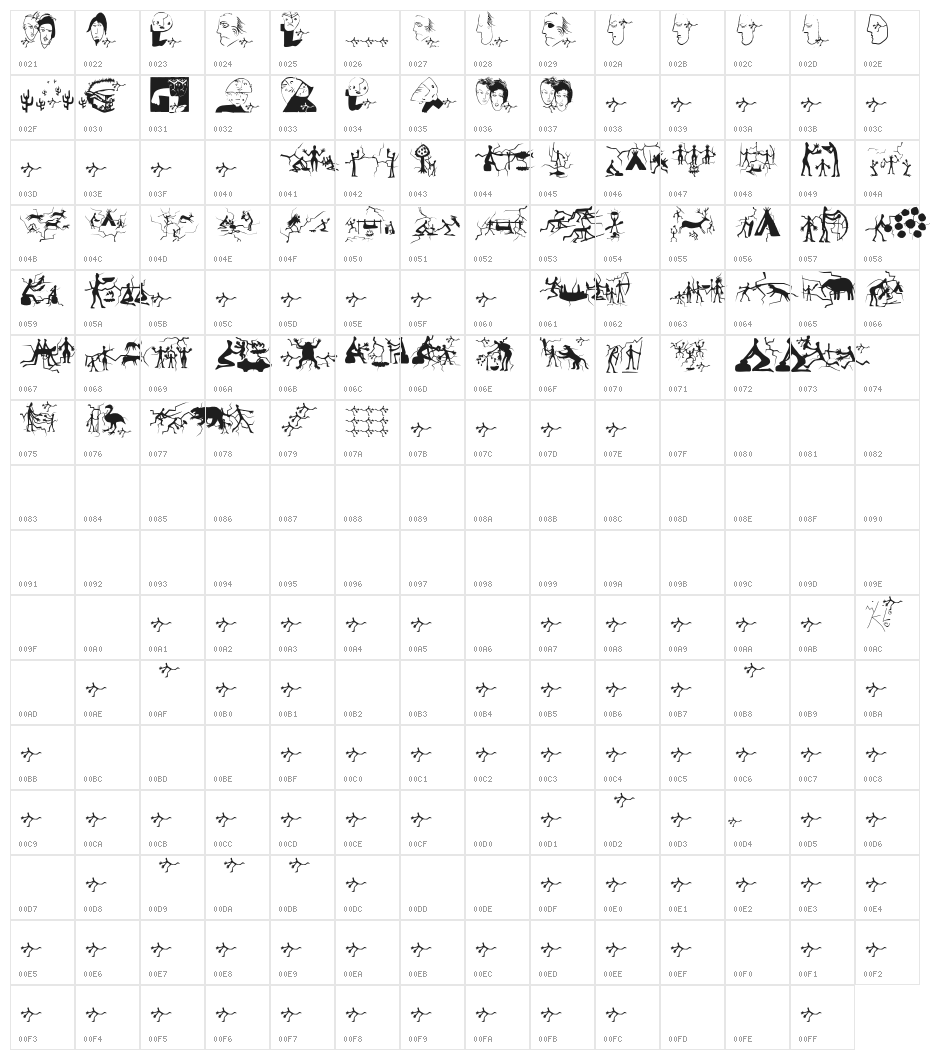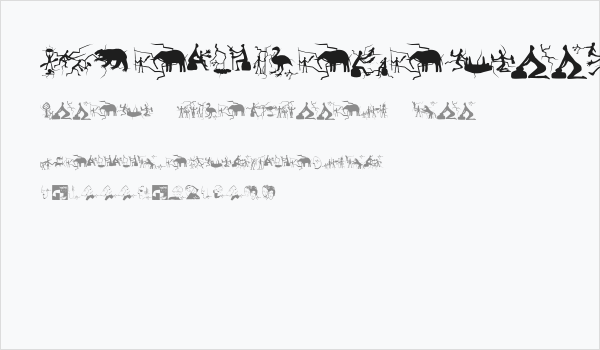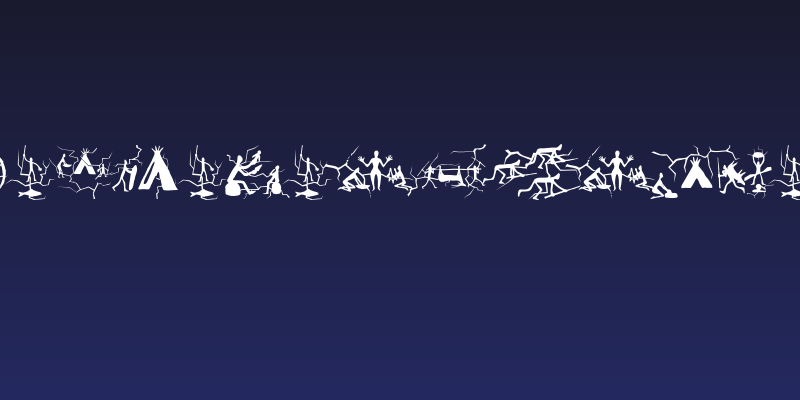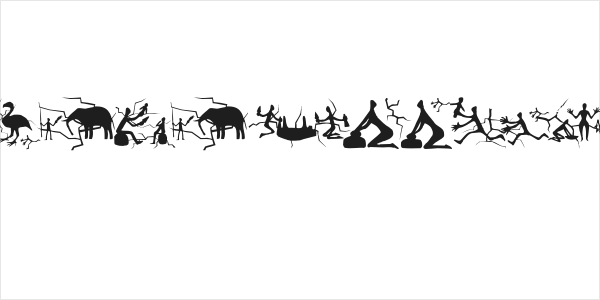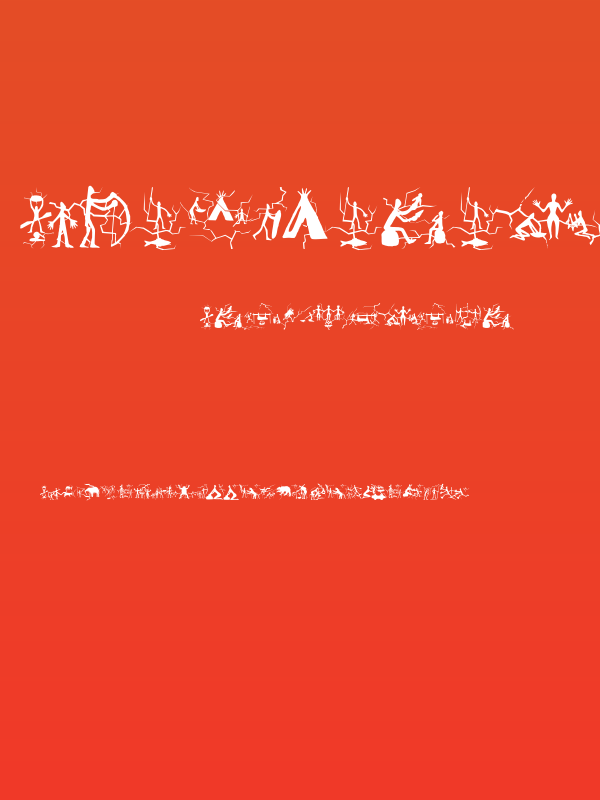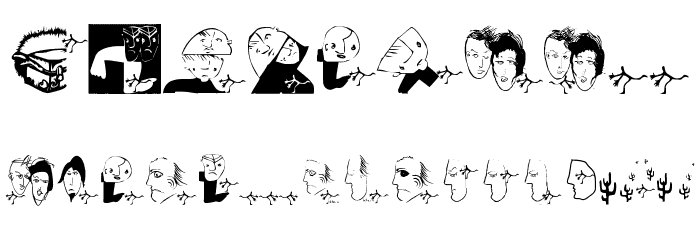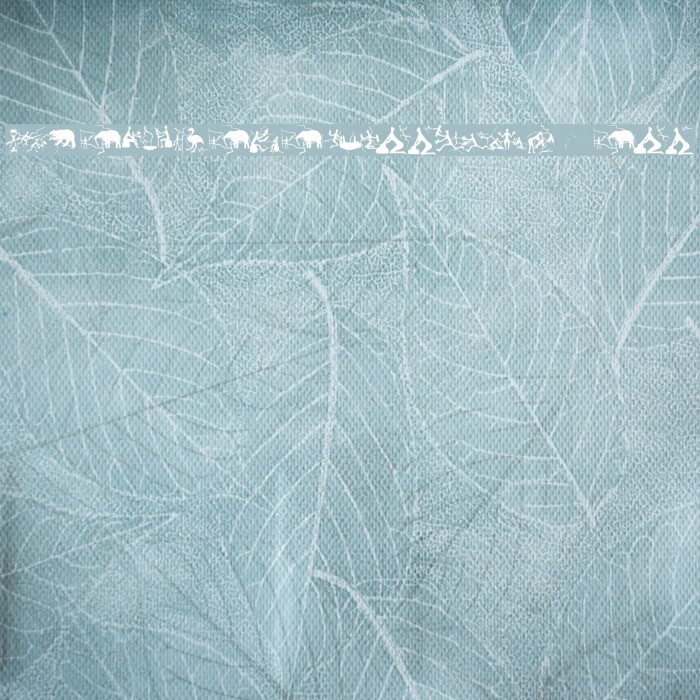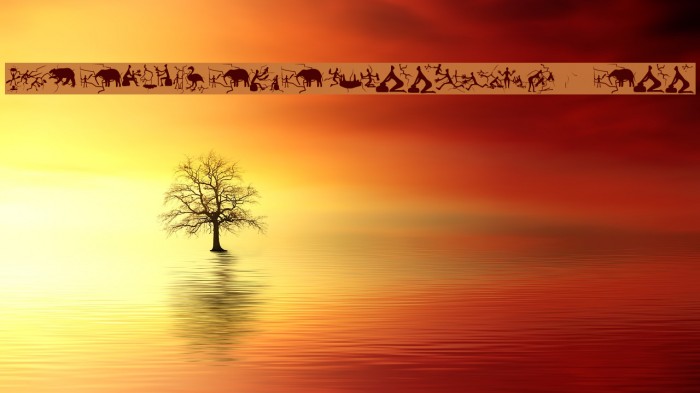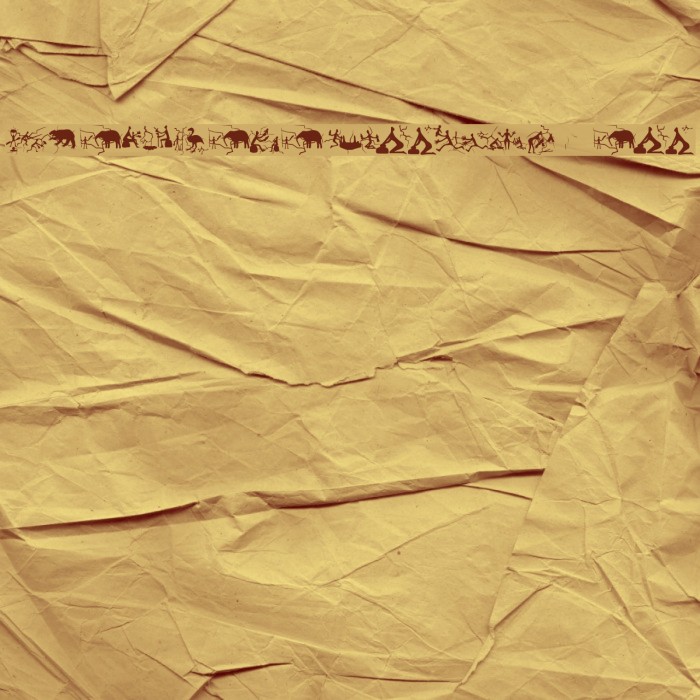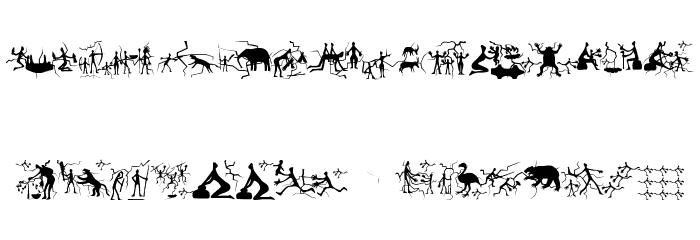
TwelveYearsAfter Font
TwelveYearsAfter Description
A highly decorative and illustrative font composed of pictorial glyphs resembling prehistoric cave paintings and stylized faces, with each character represented by a unique drawing rather than traditional letterforms.
| Overall Style | Decorative, Primitive, Artistic |
| Use Case | Logos, Posters, Art projects, Thematic displays |
| Proposed Projects | Themed posters, educational materials about history or anthropology, creative art projects, book covers, event invitations. |